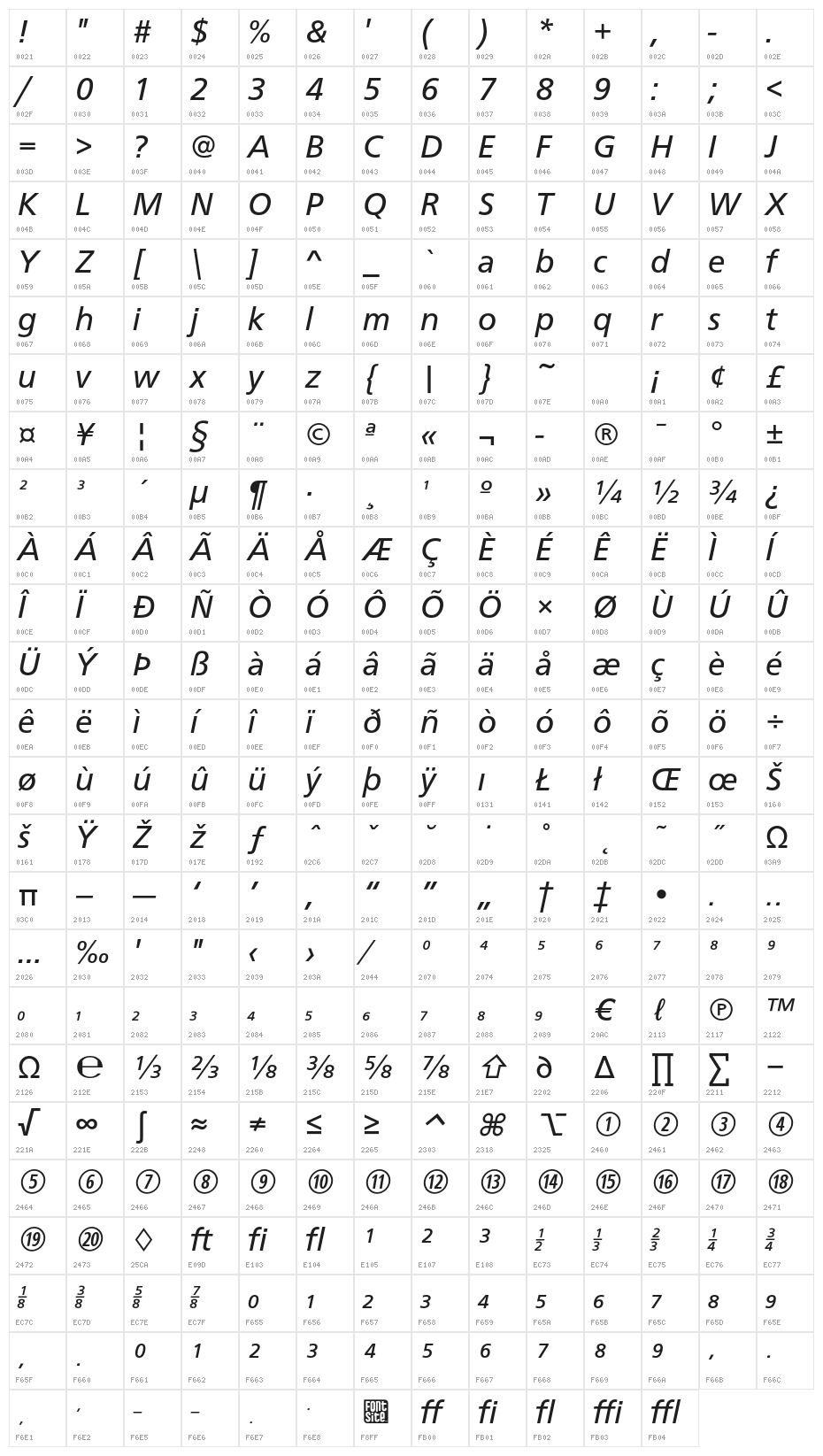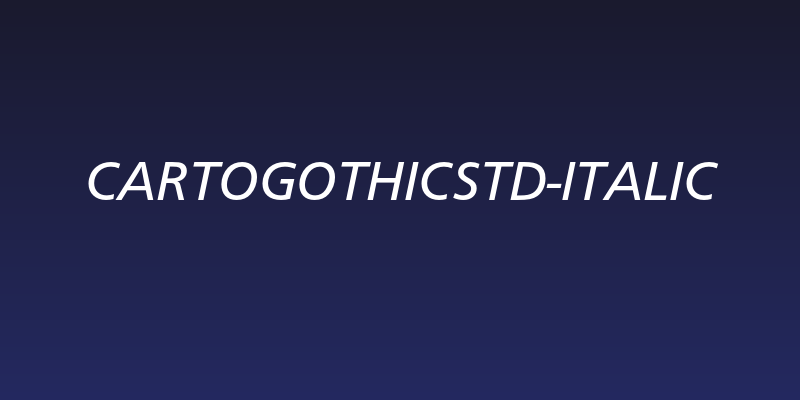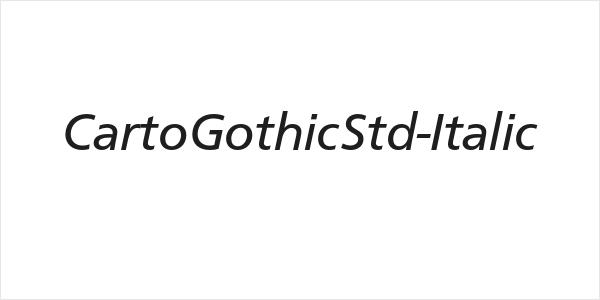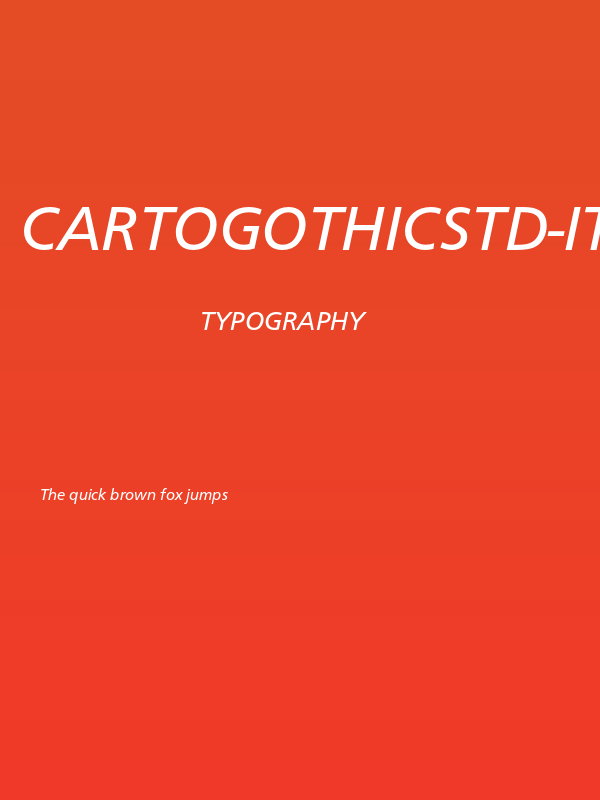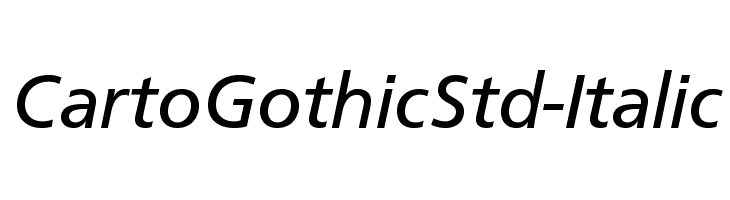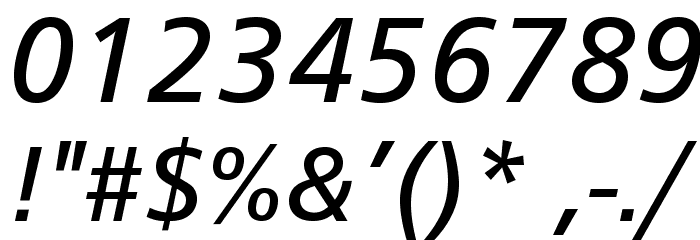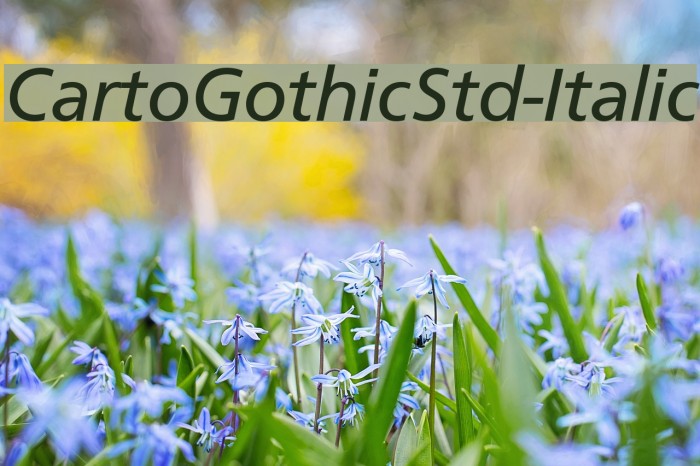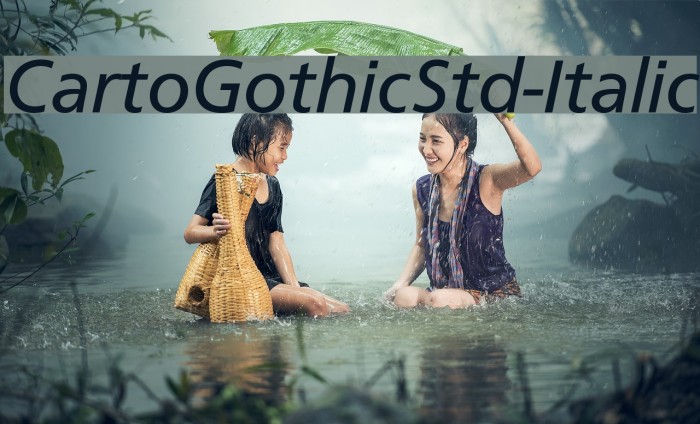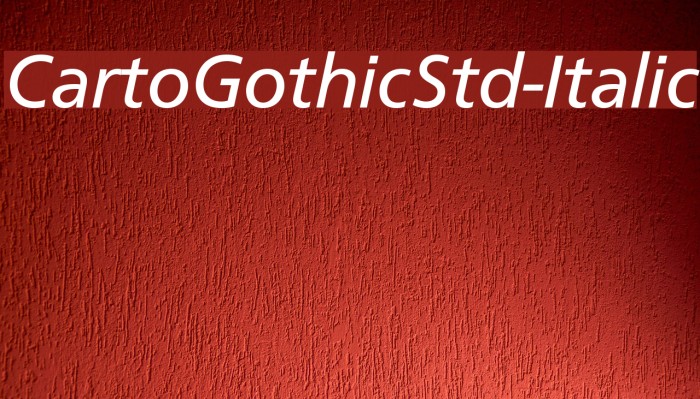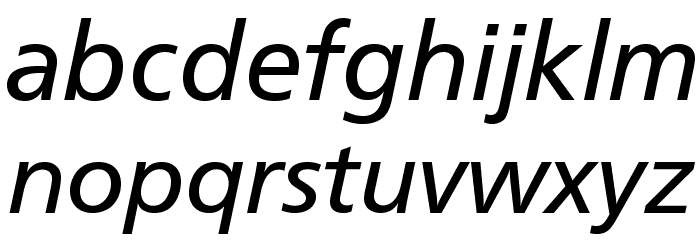
CartoGothicStd-Italic Font
CartoGothicStd-Italic Description
This font exhibits a clean and modern sans-serif style with a slight italic slant, giving it a dynamic and forward-moving appearance. The characters are well-proportioned, with smooth curves and a consistent stroke width that maintains readability across different sizes. The uppercase letters are bold and commanding, while the lowercase letters are more subtle yet still clear and legible. The numerals are straightforward and align well with the overall aesthetic. Special characters are distinct and maintain the font's sleek design. This font is versatile, suitable for both digital and print media, and can be used effectively in various design contexts.
| Use Case | Headlines, Body text, Logos |
| Proposed Projects | Ideal for branding, advertising, websites, and editorial design where a modern and sleek look is desired. |